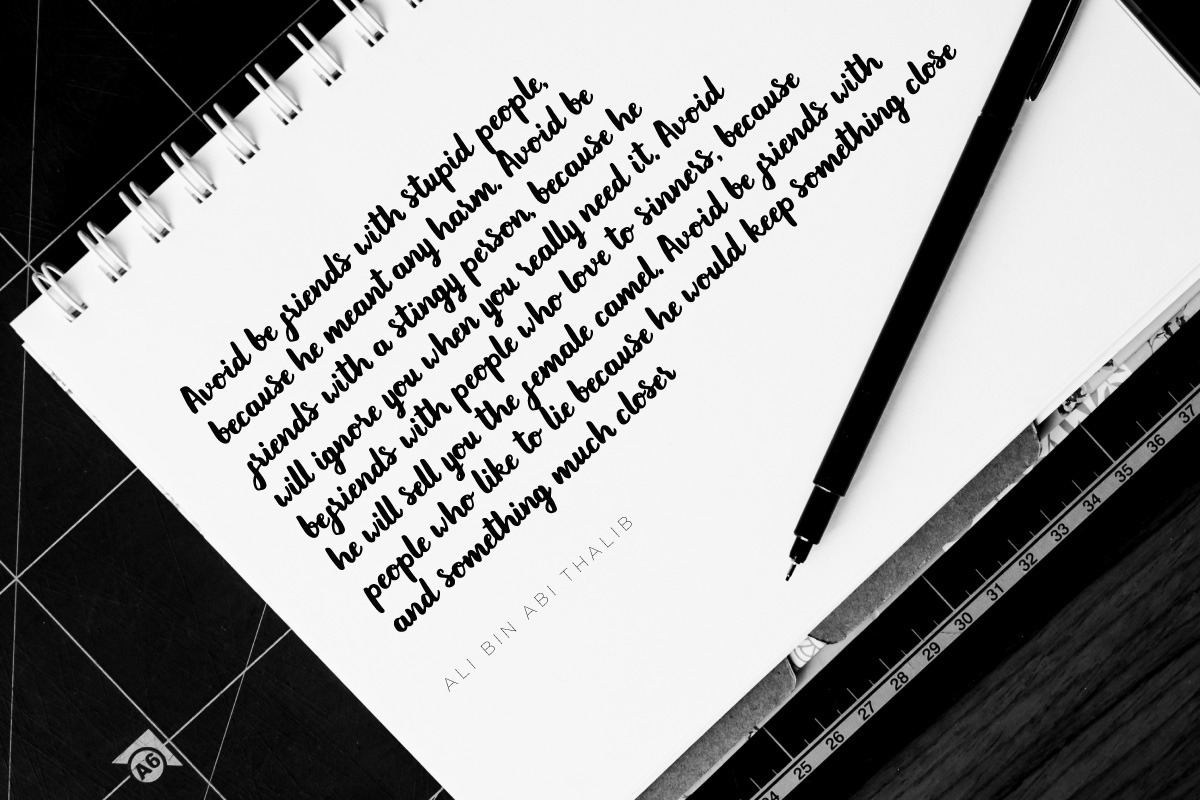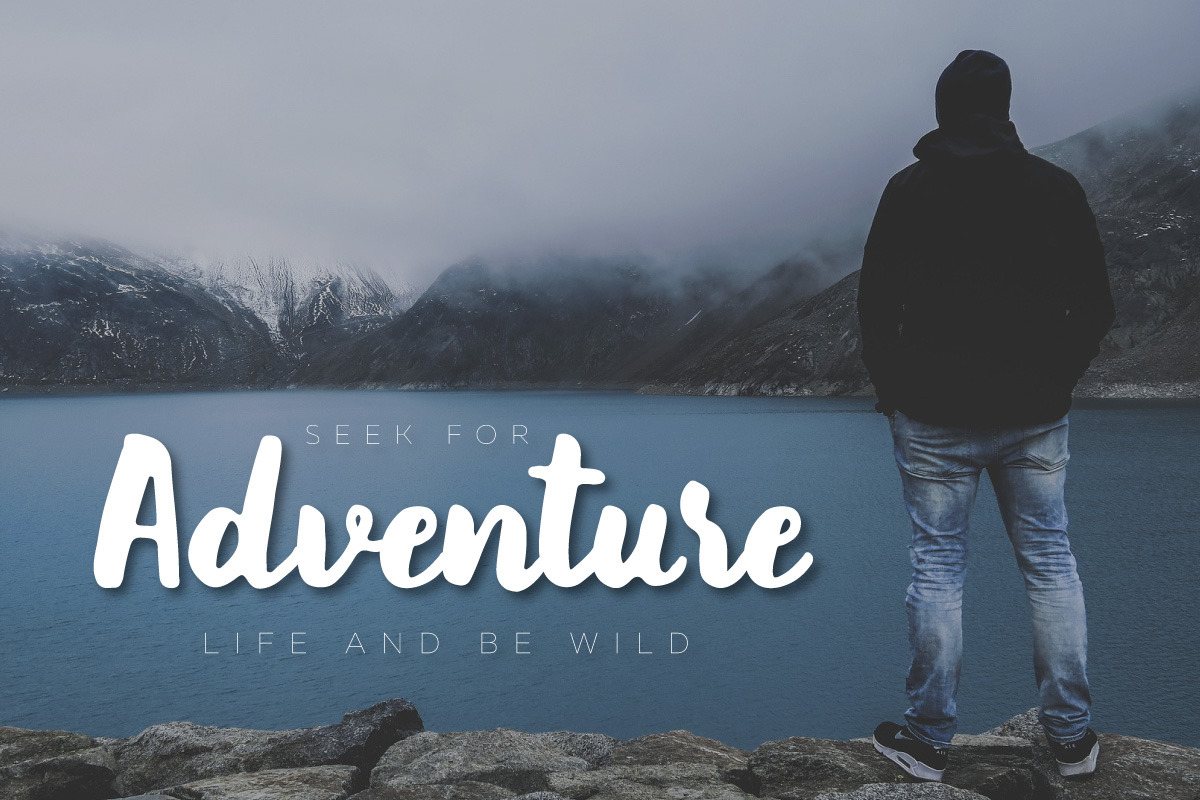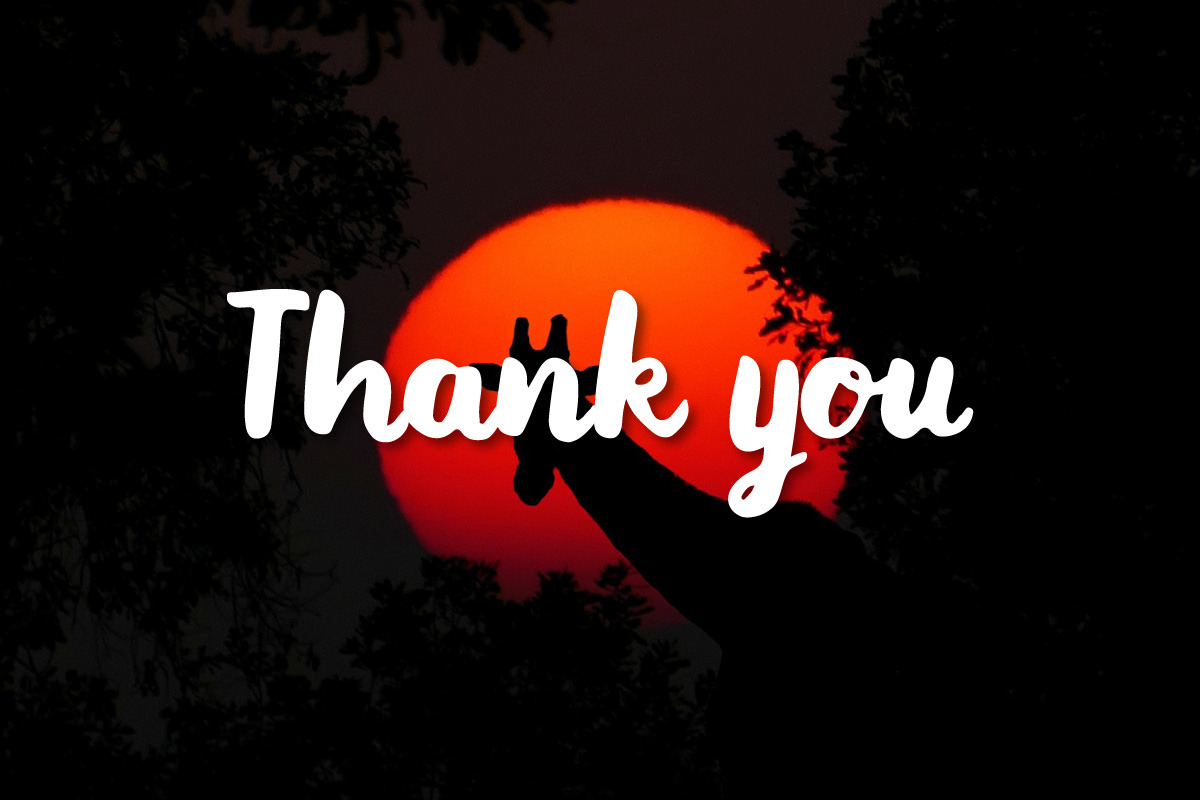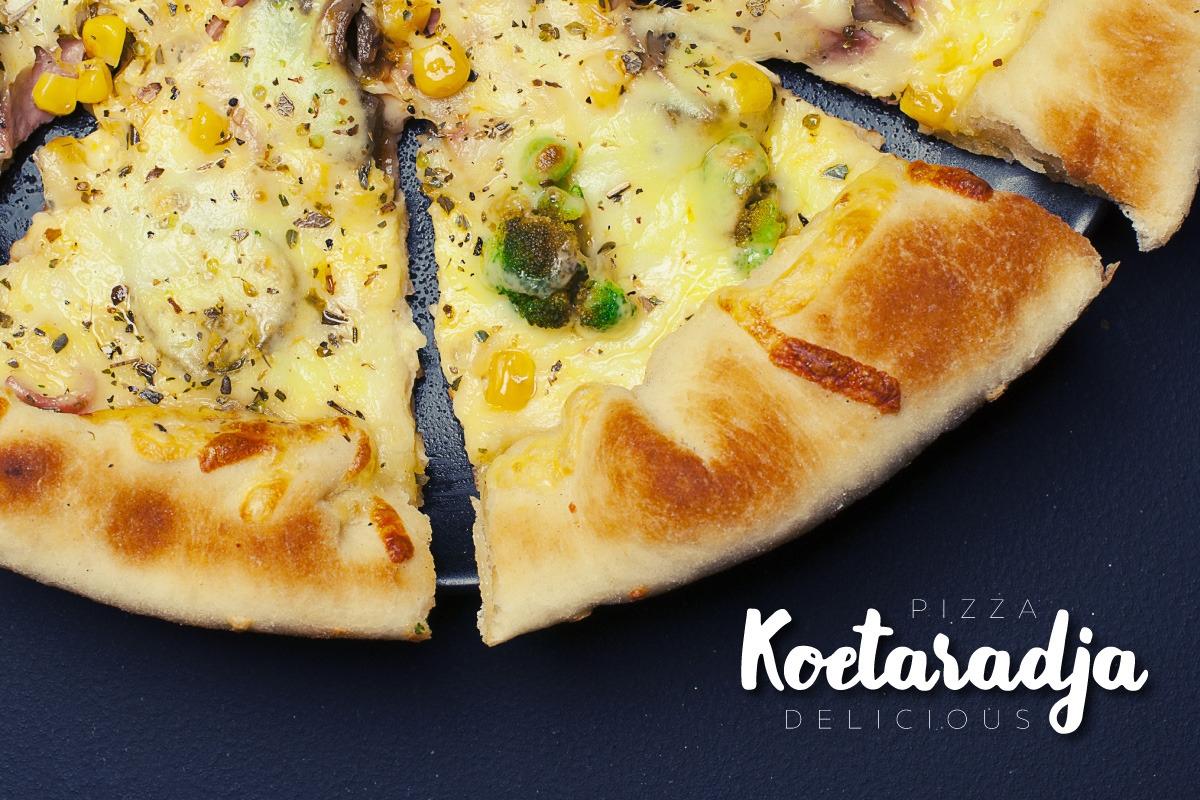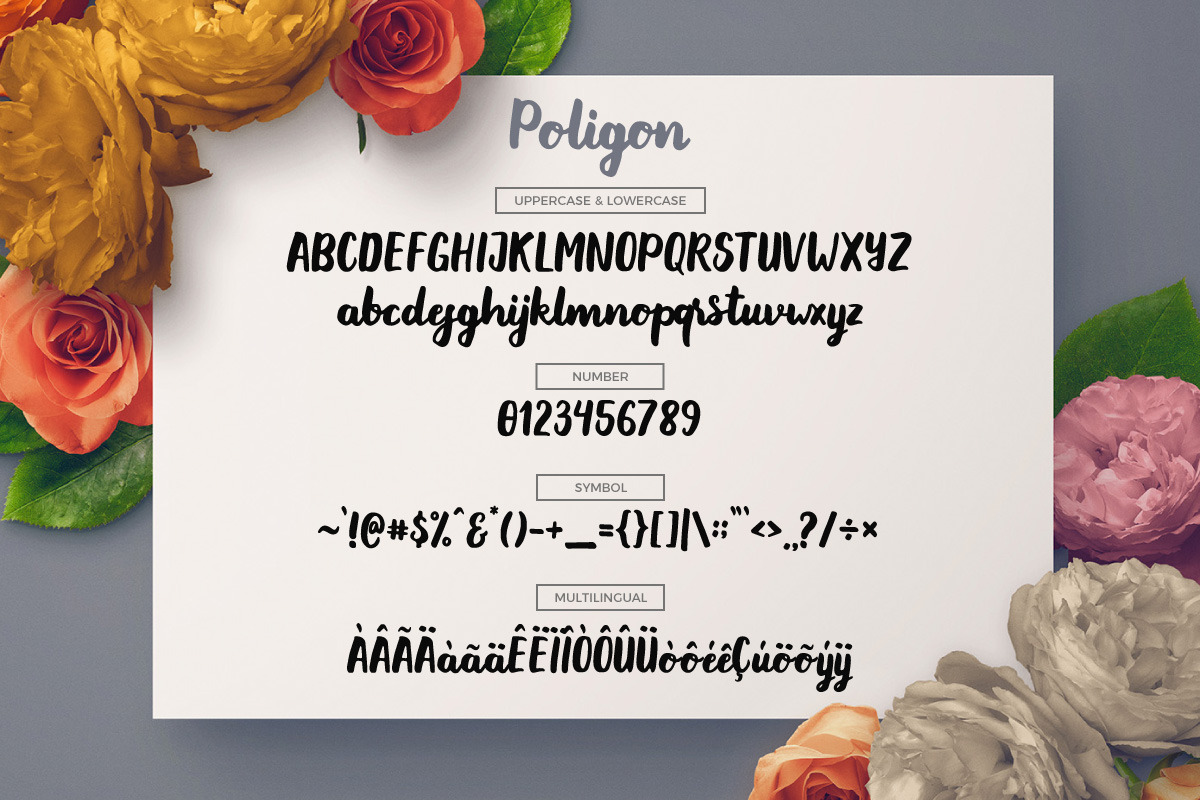
Poligon
Poligon TypefacePoligon is contemporary brush font, with the look of a stylish face. were painted on paper and carefully made into a font. can be used for stationery, fashion, logo, merchandise, books, clothing, magazines, cover artwork etc. Poligon includes main character in Uppercase and lowercase, numbers, punctuation and international support for most western languages.